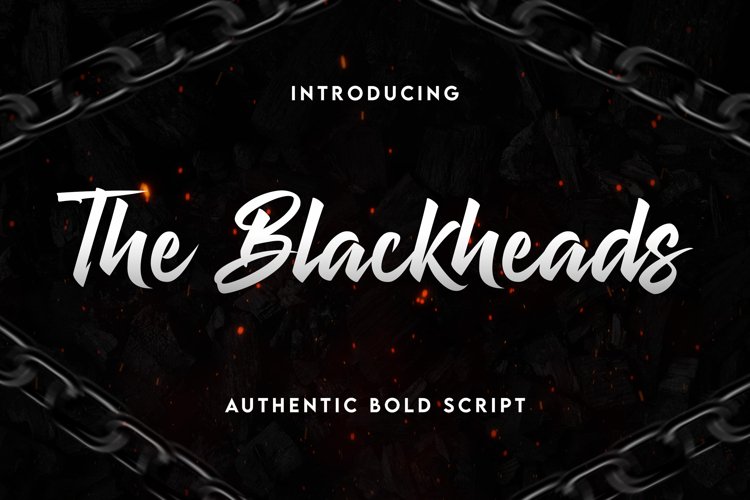
The Blackheads - Authentic Bold Script font with a clear style and dramatic movement this font is great for your next creative project such as logos, printed quotes, invitations, cards, product packaging, headers, Logotype, Letterhead, Poster, Apparel Design, Label, and etc.
+ Standard glyphs
+ Multilingual
+ OpenType Ligatures